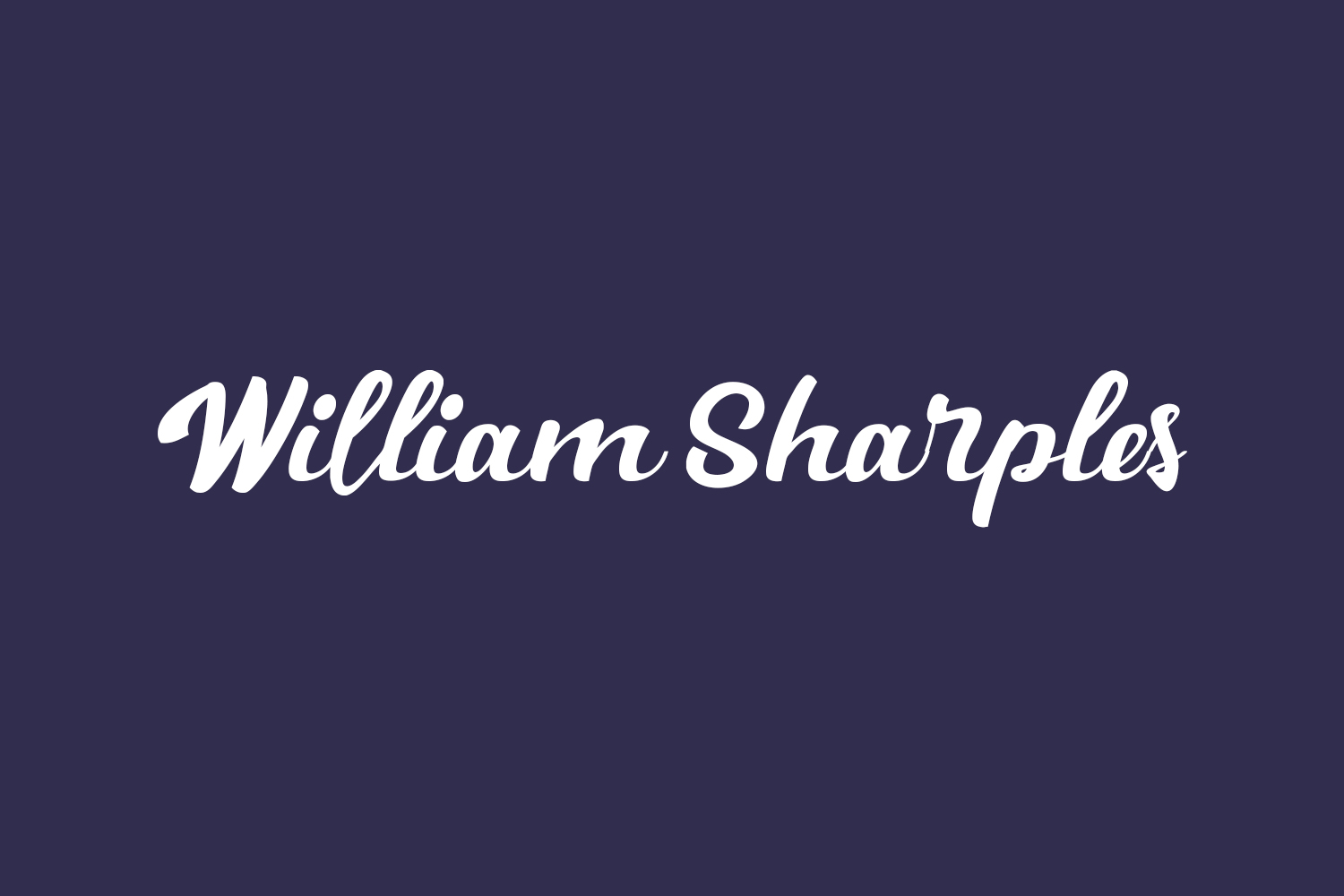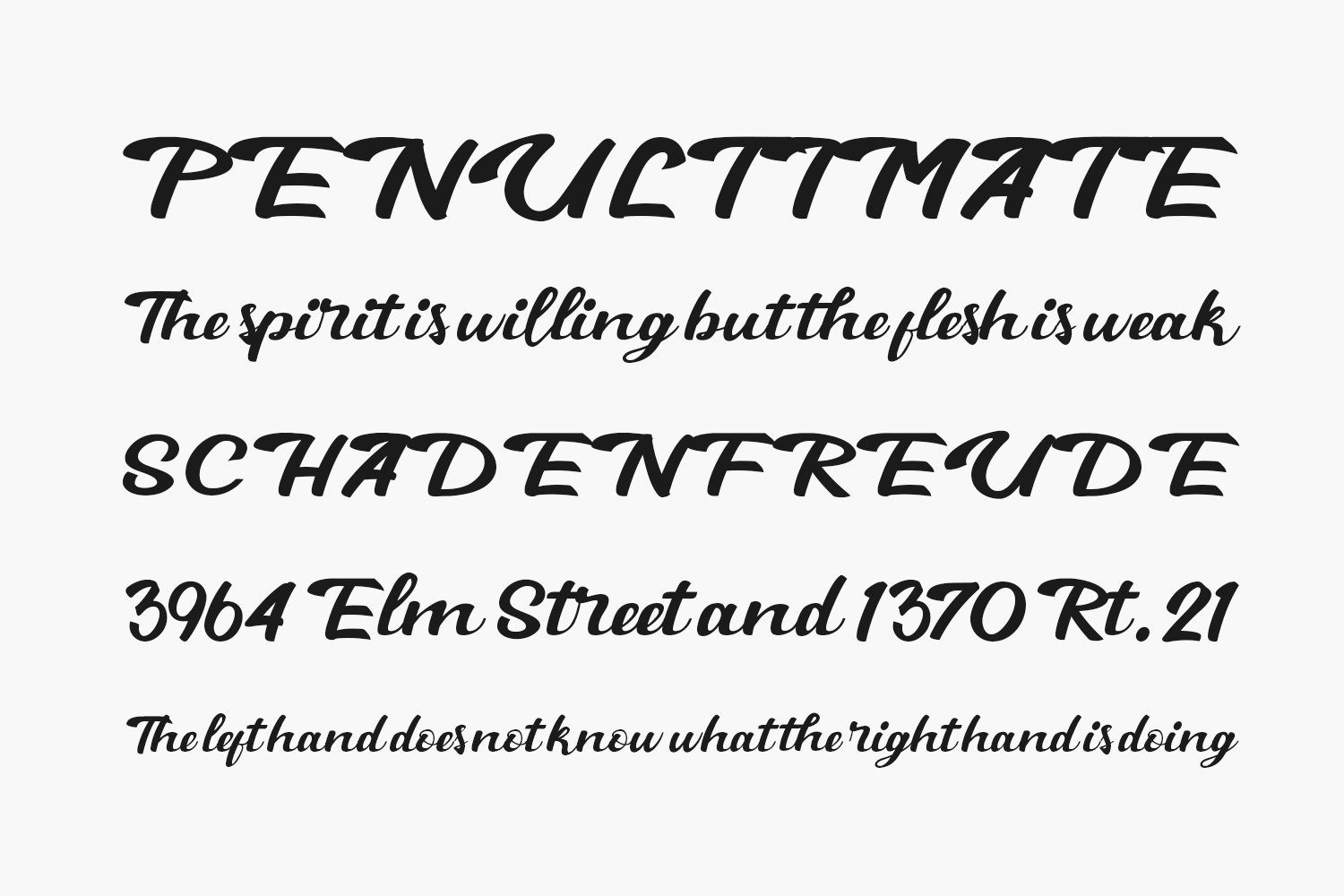
William Sharples Free Font Family is a modern script font. A collection of letters and numbers suitable for your most creative projects, including Logotype, Branding Design, Logo Design, Digital Lettering Arts, T-Shirt/Apparel, Poster, Magazine, Signs, Advertising Design, and so much more. William Sharples Free Font Family was designed by Staircase Studio and is free for personal use only. Please purchase the full version for commercial use.
William Sharples Regular The quick brown fox jumps over the lazy dog
William Sharples Swash The quick brown fox jumps over the lazy dog